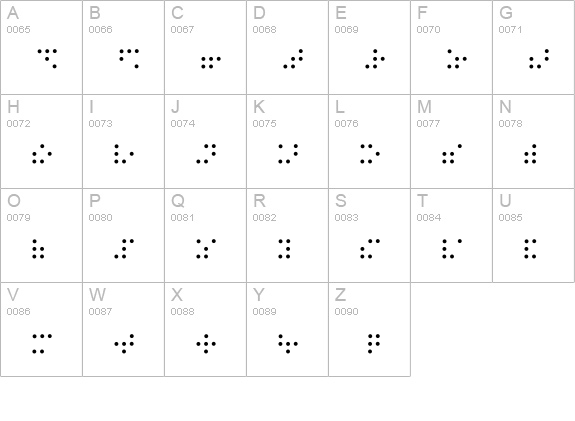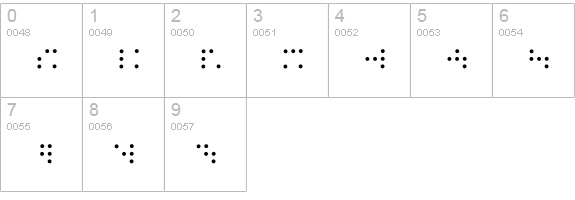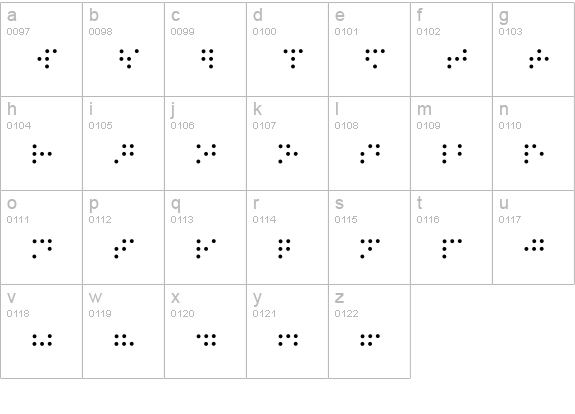
WeirdToo Font Details
Introducing WeirdToo, a captivating and eccentric font that will add a touch of quirkiness to your designs. With its unique and unpredictable letterforms, WeirdToo is the perfect choice for those seeking to break free from conventional typography. This one-of-a-kind font dares to challenge the norm, with its unconventional shapes and unexpected angles. Each letter is meticulously crafted to create a sense of intrigue and playfulness, making WeirdToo a standout choice for logos, headlines, and branding projects. But what sets WeirdToo apart is not just its distinct design, but also its accessibility. We believe that creativity should be free and readily available to all, which is why WeirdToo is freely available to download at FontsMarket.com. Embrace your individuality and unleash your imagination with this remarkable font that encourages you to think outside the box. Whether you're designing a poster, crafting an invitation, or simply adding a touch of uniqueness to your social media posts, WeirdToo will undoubtedly leave a lasting impression. Its versatility allows it to adapt to various styles and themes, making it a valuable asset for designers, creatives, and enthusiasts alike. So, why settle for ordinary when you can embrace the extraordinary? Embrace the unconventional and let WeirdToo be the catalyst for your wildest design ideas. Discover the limitless possibilities it offers and download it today, completely free, at FontsMarket.com. Let WeirdToo be the bold statement that sets your designs apart from the rest.